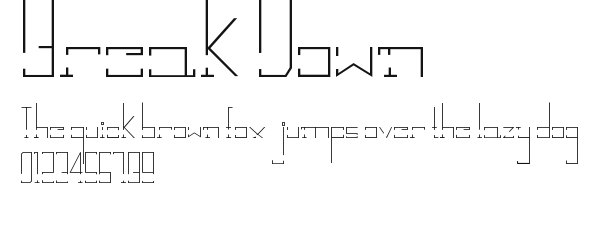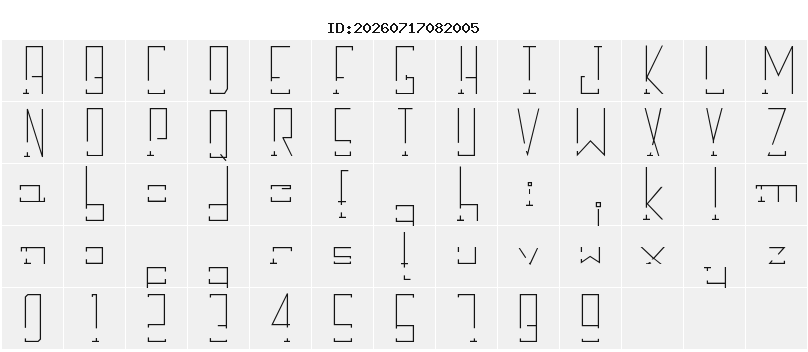
• Font Name: Break Down
• Full Font Name: Break Down
About Break Down.ttf
Break Down.ttf is a modern, elegant sans-serif font designed for ultimate readability and visual harmony. Perfect for branding, headlines, web design, and print materials.